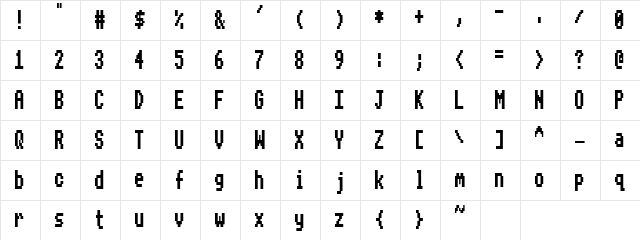
Beeb Mode Zero Regular
Design Context for Beeb Mode Zero Typeface
Beeb Mode Zero offers clean, dependable letterforms without strong stylistic allegiance, making it a practical choice for designers who need flexibility.